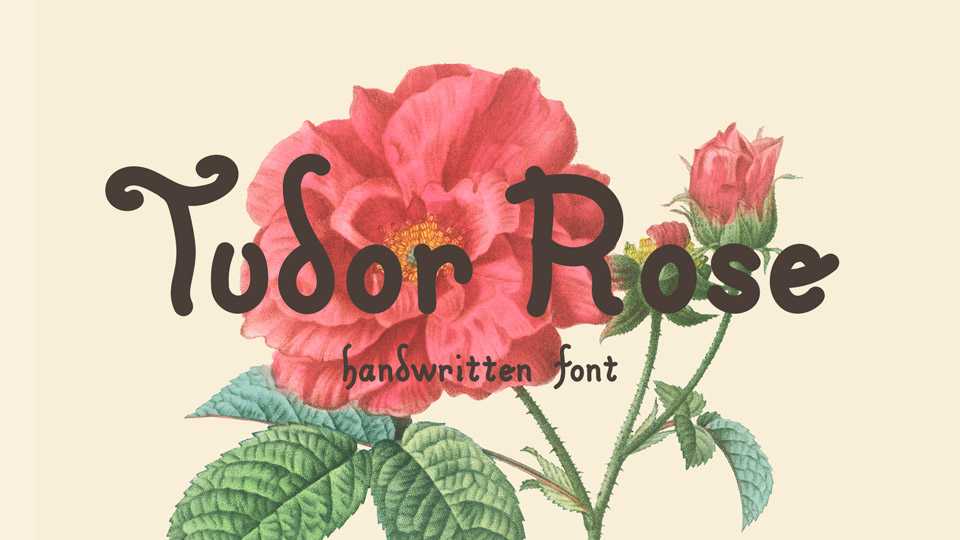
Dowload Tudor Rose font, a rounded sans serif with heading towards script. It has nothing to do with the Tudor calligraphy, or roses, but has a nice heavy feel to it and good curves (spiro spines).
Designer: James Kilfiger